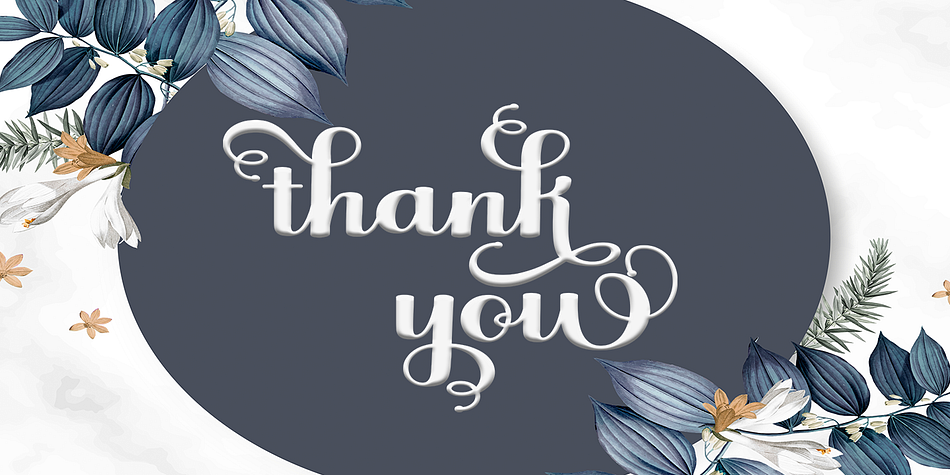
Martha
Martha is a brush script and modern calligraphy font family published by HRZ Studio.
Martha Script is a modern calligraphy font, including regular, italic and extras featuring a sleek and neat glyph. This font has a beautiful and balanced character, making it suitable for various purposes. such as written posters, wedding invitations, logos, product packaging, branding, titles, signs, labels, mugs, book covers, quotes, and others.
Styles Brush Script, Modern Calligraphy